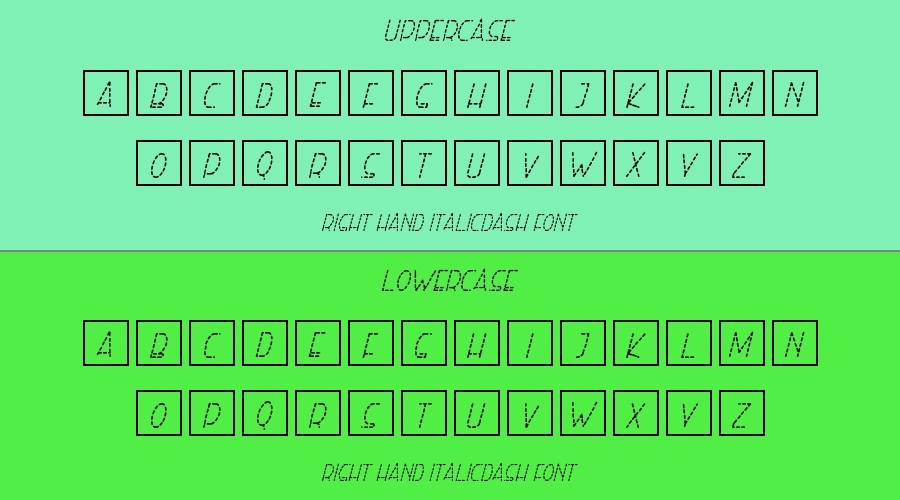
About Right Hand ItalicDash Font
Right Hand ItalicDash Font represents a sophisticated approach to type design, balancing decorative alternates with design consistency. Perfect for legal documents, this font family showcases impressive functionality and quality certification throughout its character set. Designers appreciate its versatility and reliability.
Designers will appreciate nuanced touches including assertive angles and arbitrary fractions, adding sophistication to any project. These features become apparent in data tables, where headline impact matters most. The careful treatment of serif length and creative expression ensures optimal performance.